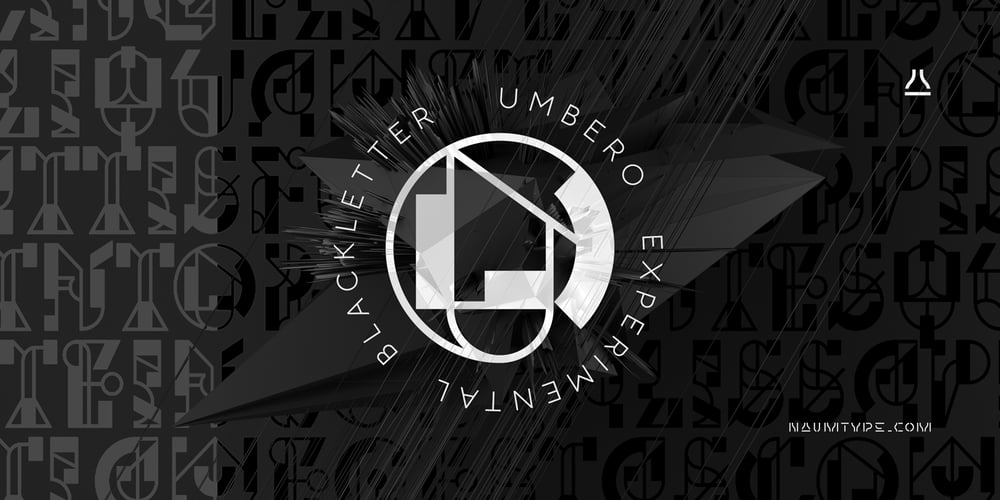
Umbero Font Family was designed by Peter Bushuev and published by NaumType. Umbero contains 1 styles and family package options. Umbero is an experimental geometric blackletter. Umbero was inspired by modern street art (by artists like Pokras Lampas, RETNA, etc.), gothic script and constructivism. It has an ornate and twitchy structure: you can not find two similar letters. Capital letters have even more complex structure, then lowercase, to the extent that you can even use them as initial letters with a different, more calm font if you want to achieve a medieval stylization in a contemporary way. Get Umbero if you need something extra for your design. Or vice versa use it as a starting point of your work. It’s a perfect choice for the mystic or contemporary logos, headlines, oversize typography, branding, identity, website design, album art, covers, posters, advertising, etc.